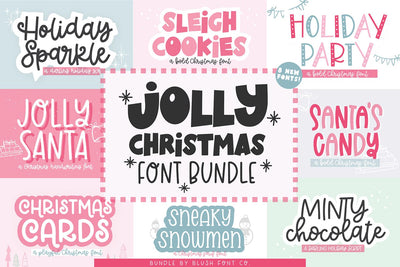
Jolly Christmas Font Bundle V1
Our 2021 Christmas bundle is here! Grab these 8 new and FUN Christmas fonts in one download, for huge savings! These fonts are going to be perfect for all of your cute Christmas crafts, like Christmas decor, sweaters, and party invitations! The 8 fonts included are:
JOLLY SANTA
SLEIGH COOKIES
HOLIDAY PARTY
SNEAKY SNOWMEN
HOLIDAY SPARKLE
SANTA'S CANDY
MINTY CHOCOLATE
CHRISTMAS CARDS